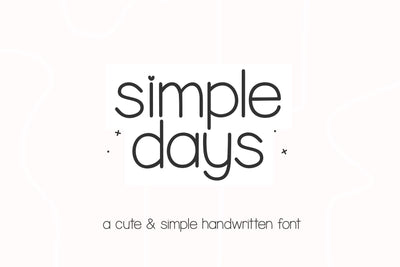
Simple Days - Cute Handwriting Font
Simple Days is a cute handwriting font.
This font is perfect for cricut projects, quotes, goodnotes, planners, handwritten notes, logos, teachers and more!